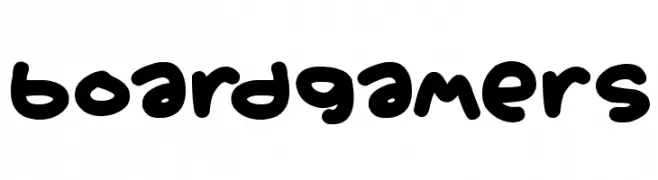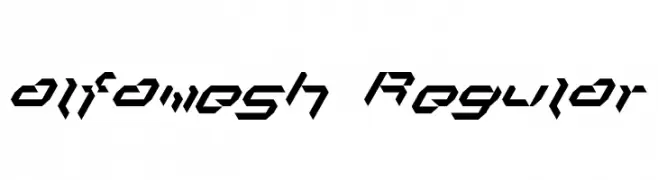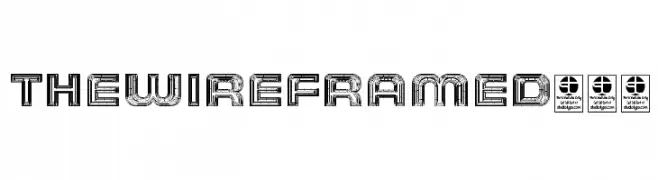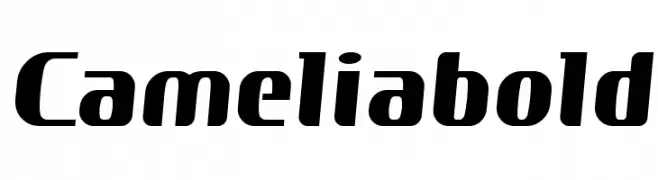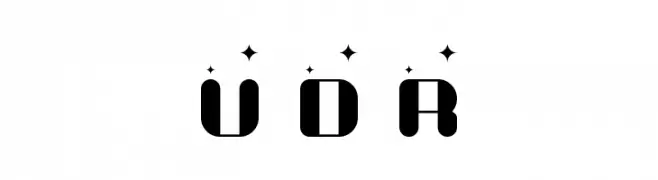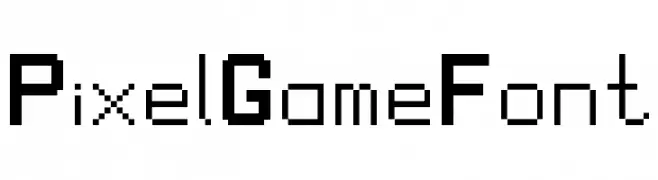
( Fonts by Paul Nevvgeneva )
A futuristic, angular font with sharp edges and geometric shapes.
A wireframe-style font with a three-dimensional, technical look.
A bold, modern font with rounded edges and a slightly condensed form.
A geometric and ornamental font with sharp lines and intricate inner patterns.
( Bill Walker )
A bold, geometric font with a futuristic and edgy design.
( Bryndan Meyerholt )
A pixelated, retro-style font ideal for vintage digital designs.